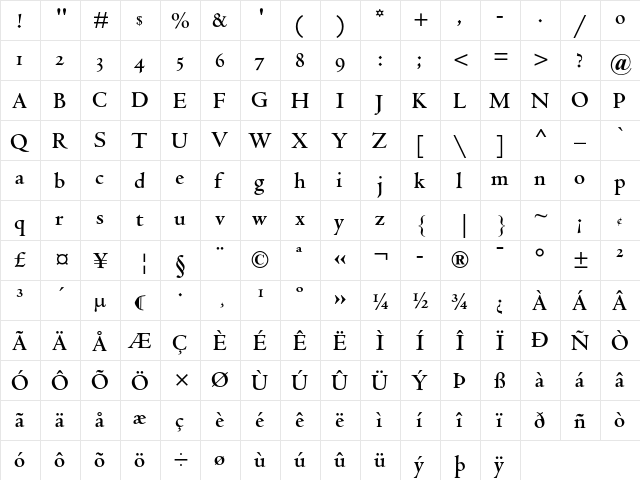
Centaur MT Bold OsF Font Preview
Centaur MT Bold OsF
Design Context for Centaur MT Typeface
Centaur MT offers clean, dependable letterforms without strong stylistic allegiance, making it a practical choice for designers who need flexibility. The heavy weight commands attention and anchors typographic hierarchies.